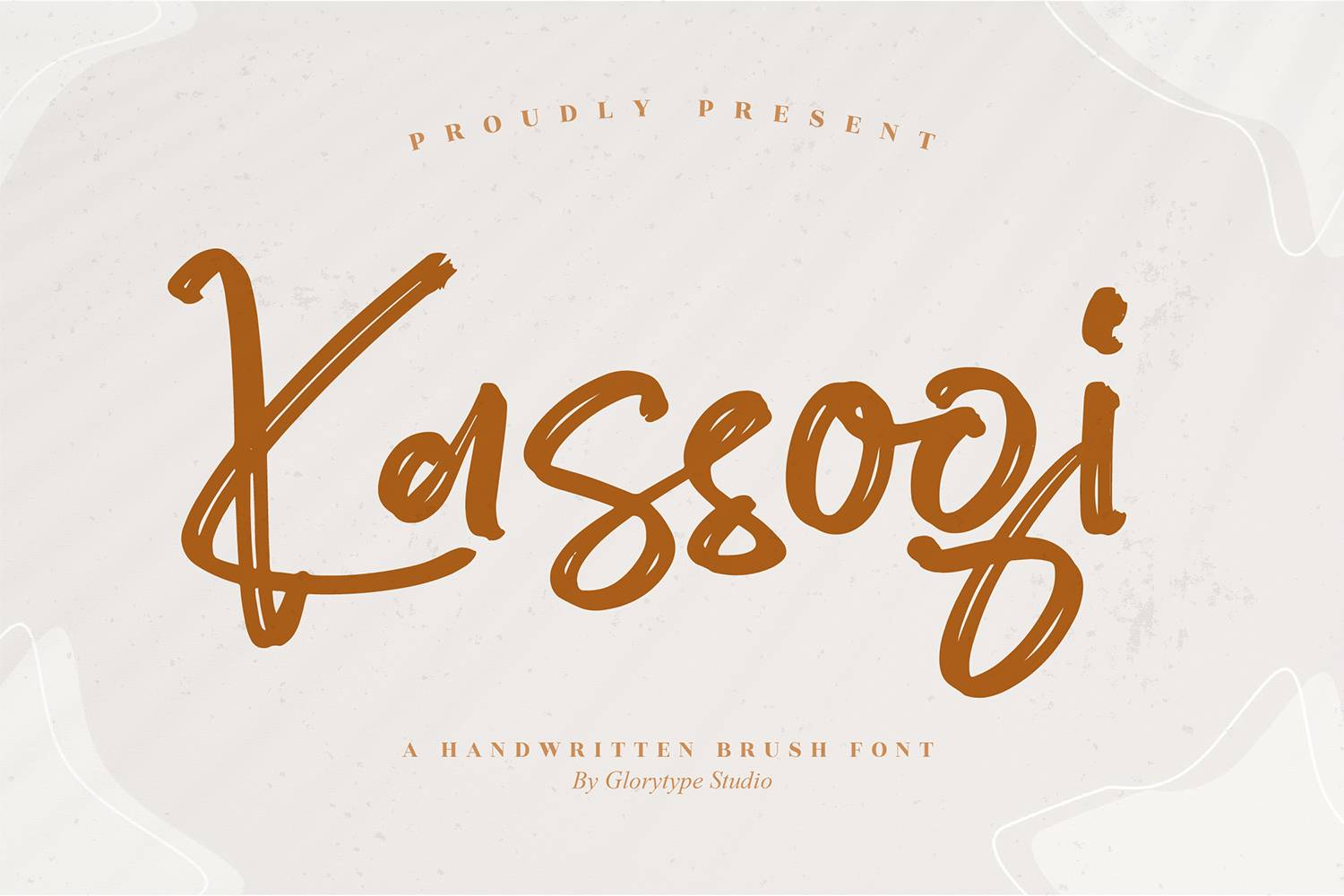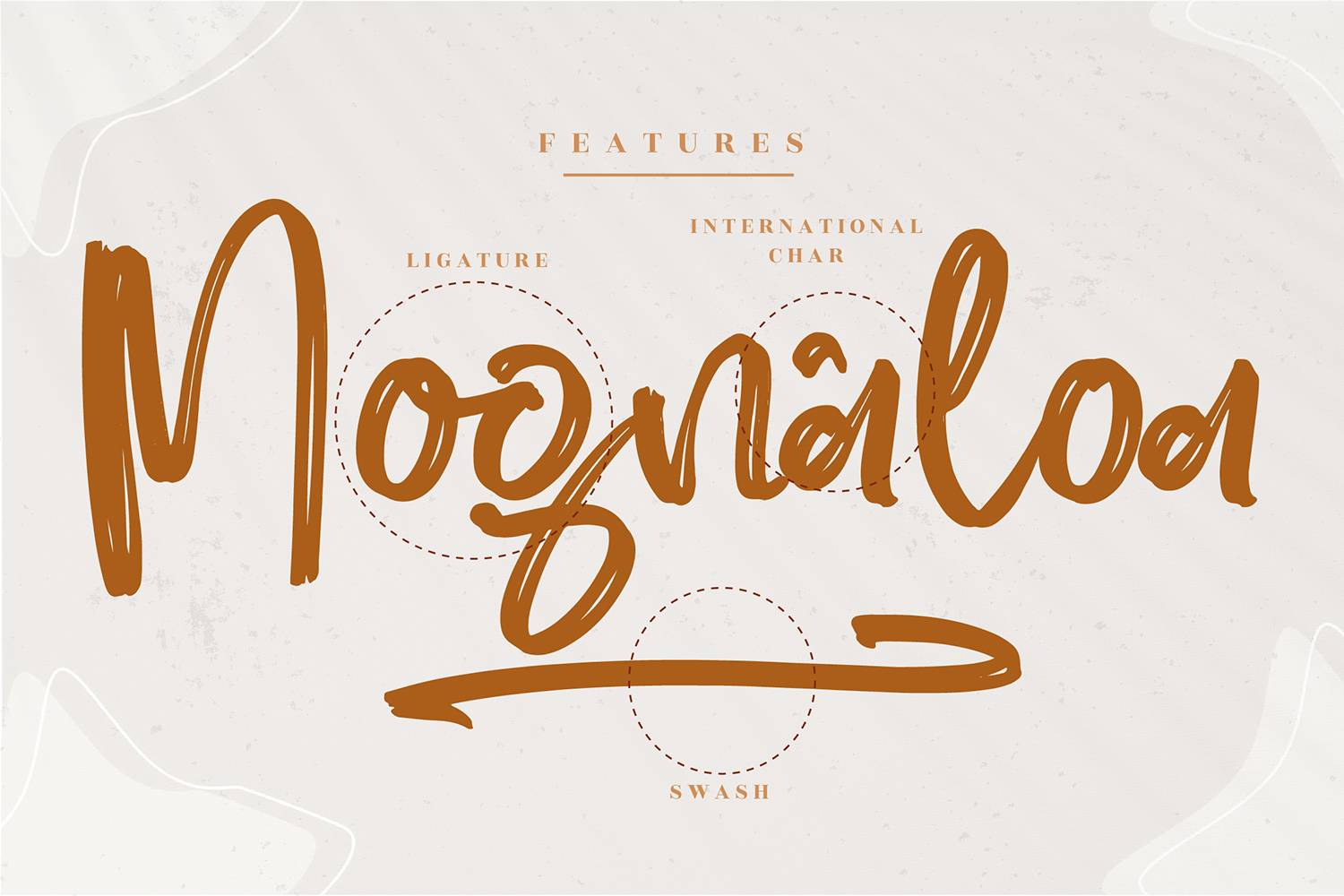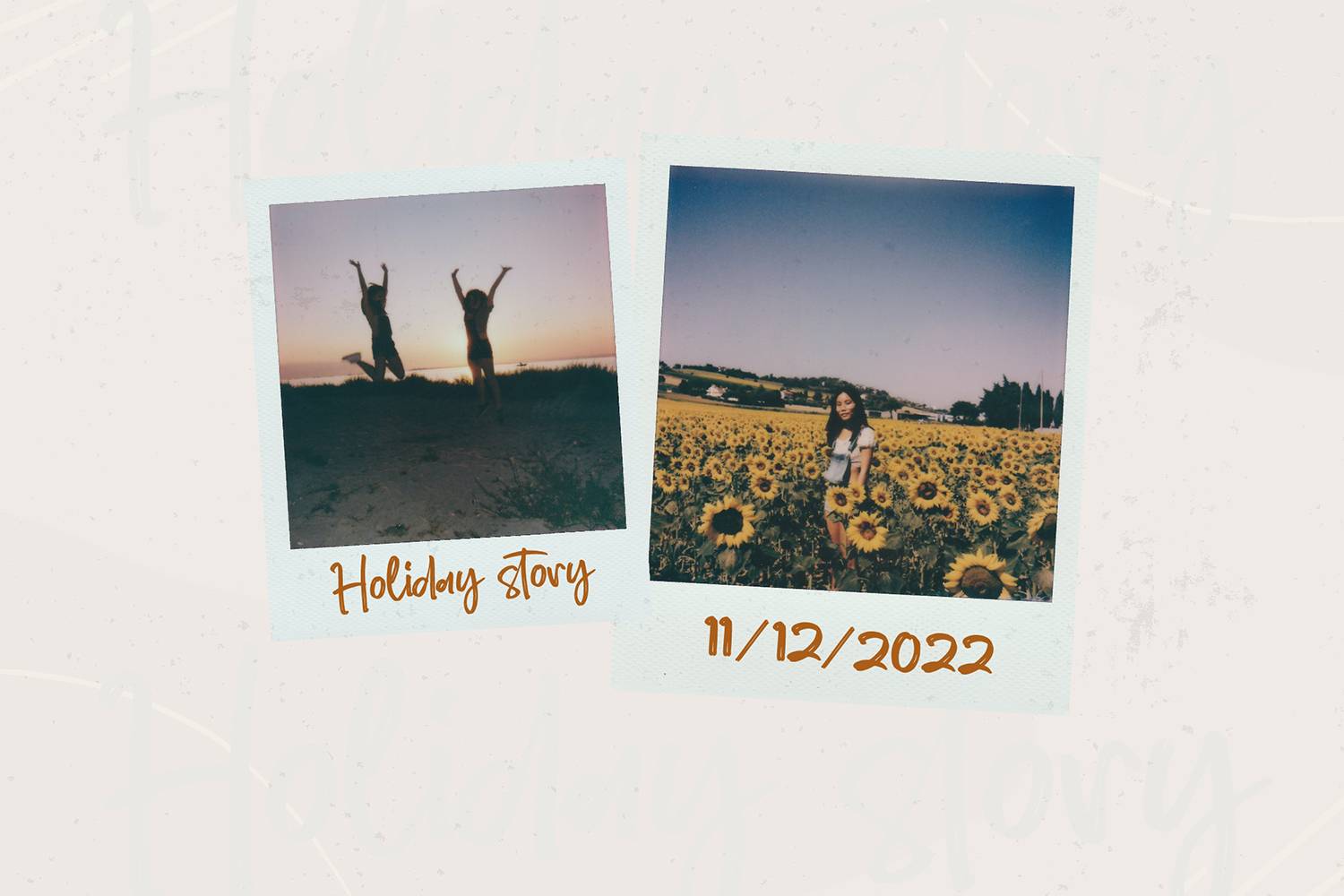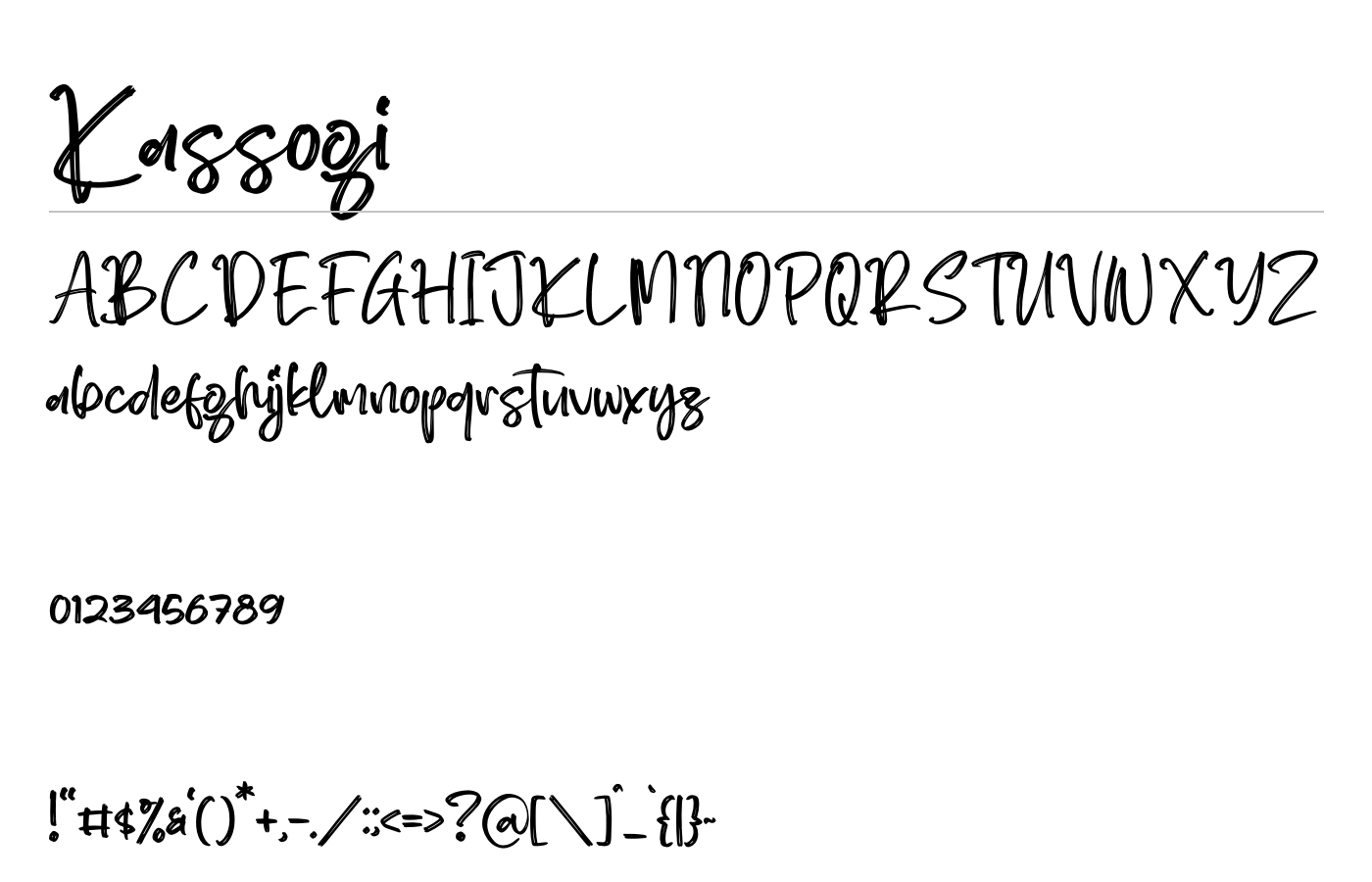
Kassogi is a lively handwritten script font with a casual and artistic flair, featuring varied stroke widths and playful curves that mimic natural brush lettering. Its tall x-height and loosely spaced characters create an approachable and dynamic feel, making it ideal for creative branding, invitations, and expressive headlines that seek a personal and energetic touch. This font works well where a friendly, informal style is desired, adding charm and character to any design.
Kassogi Font
About Kassogi Font